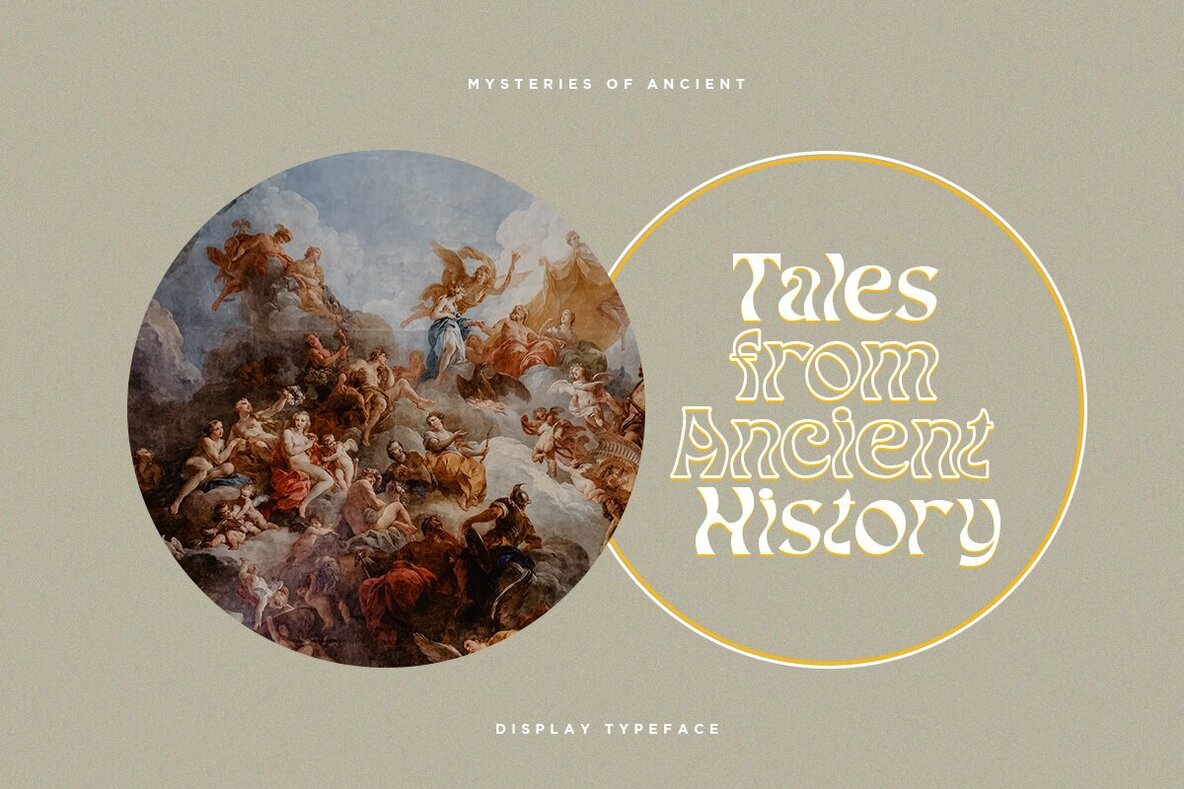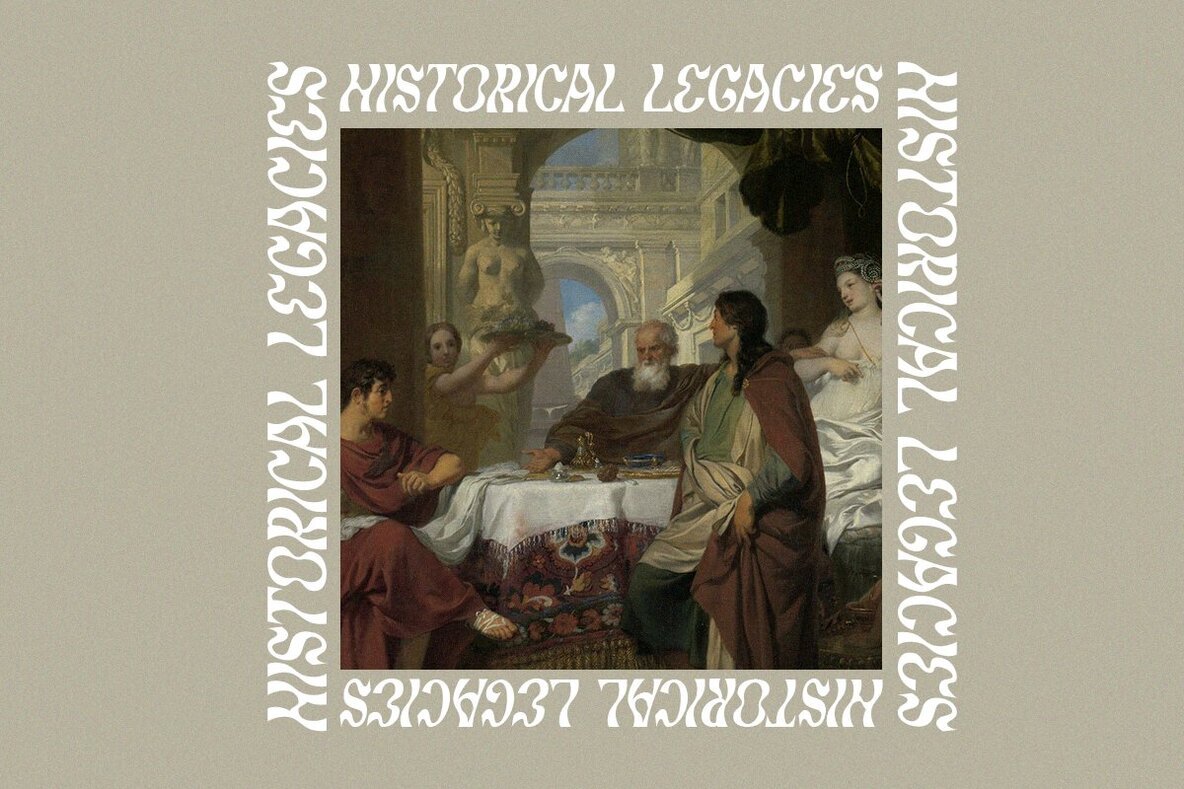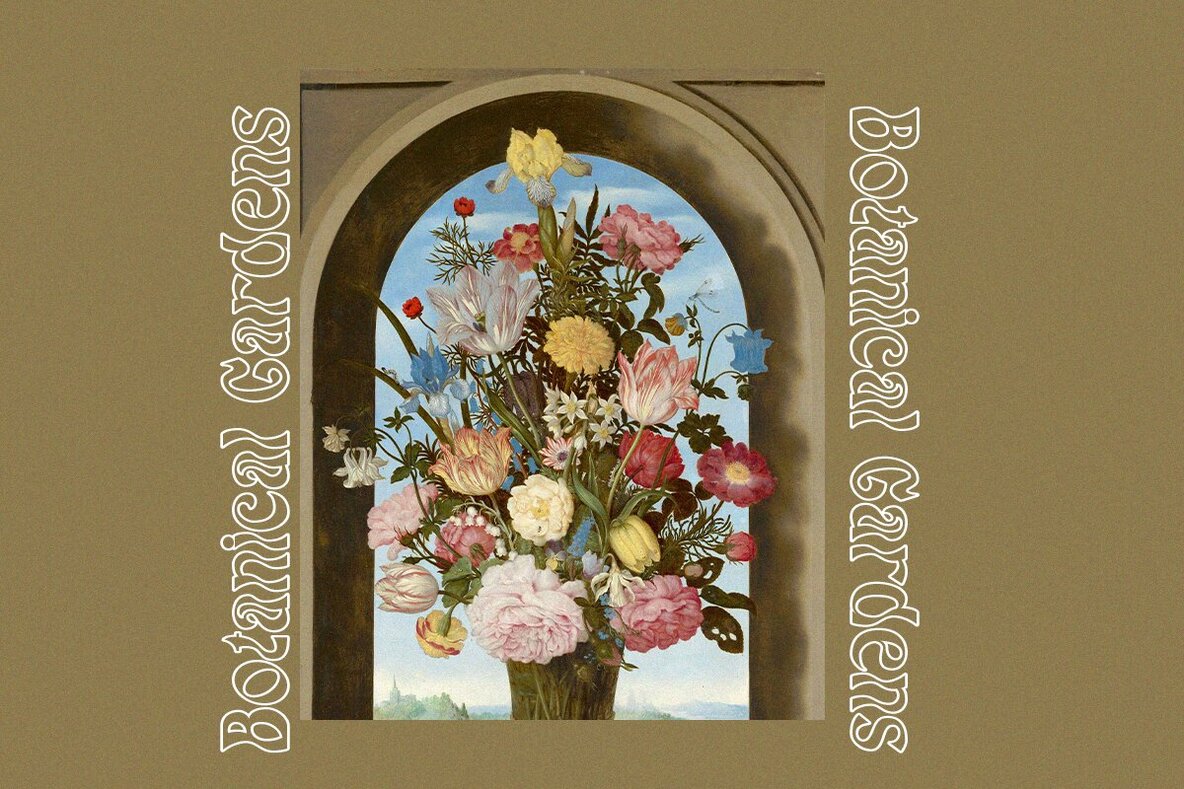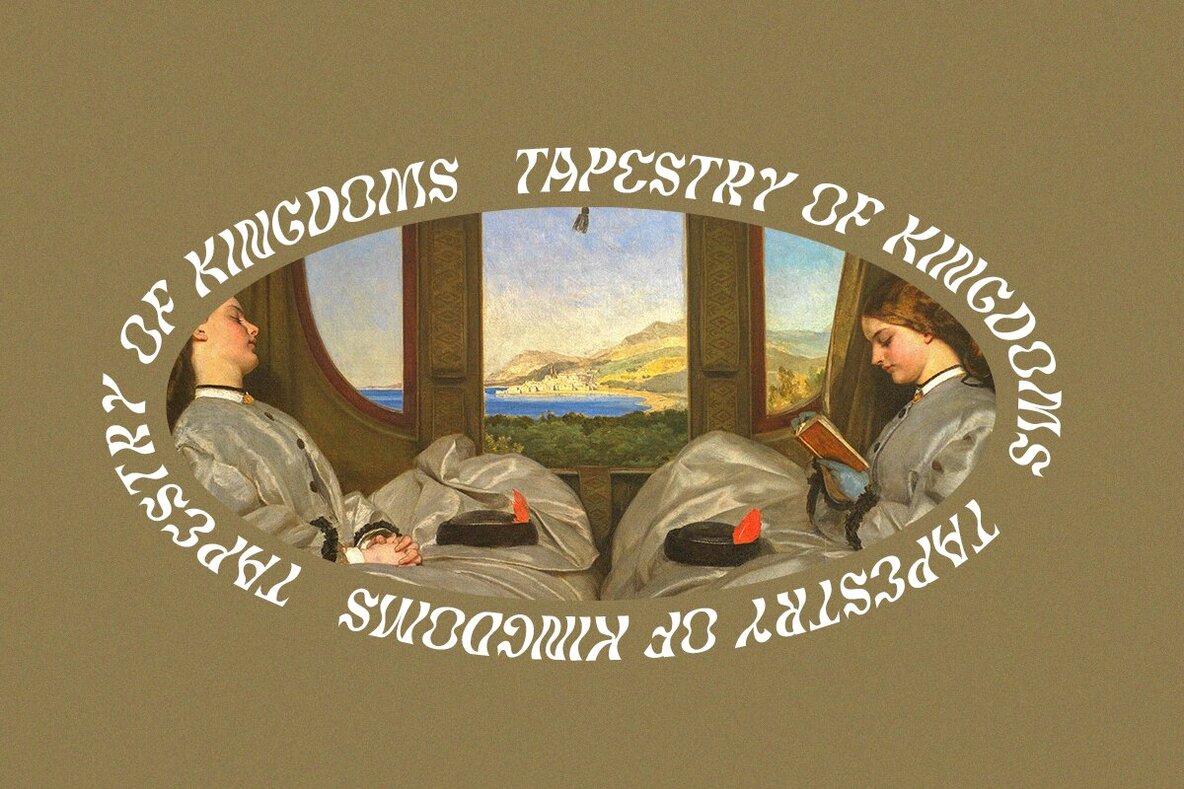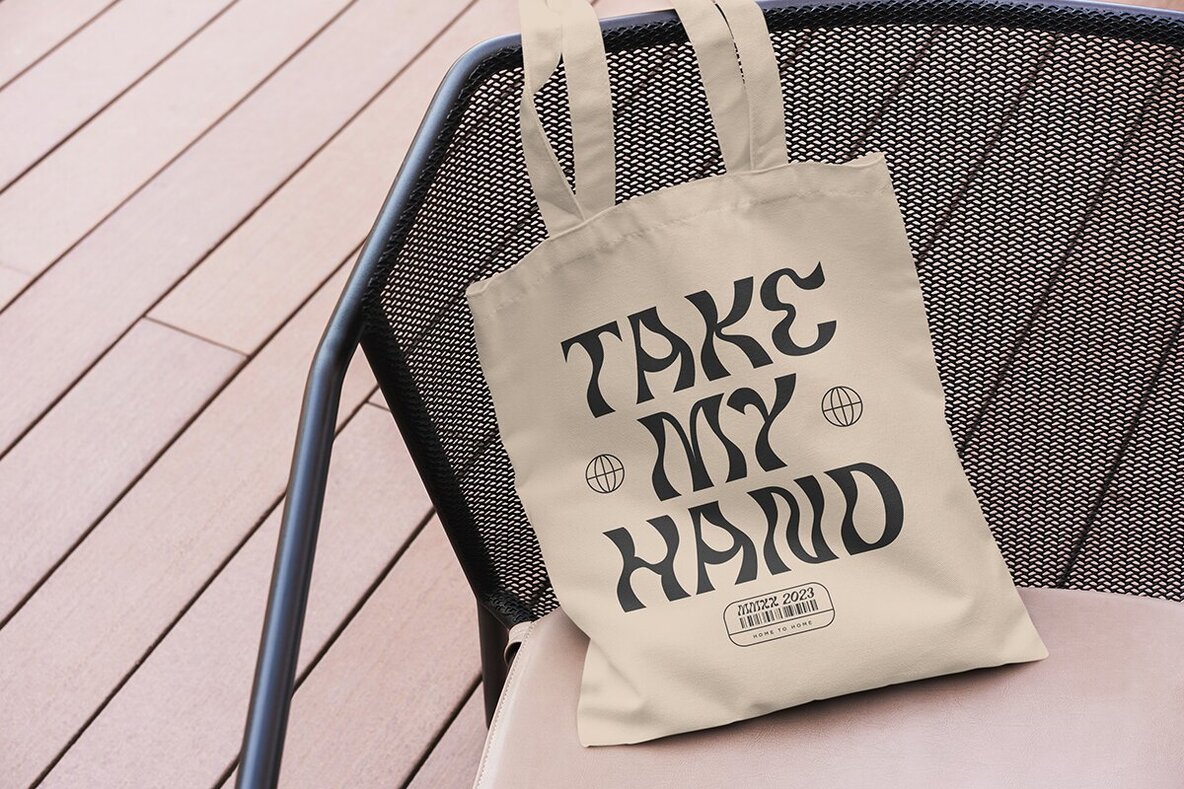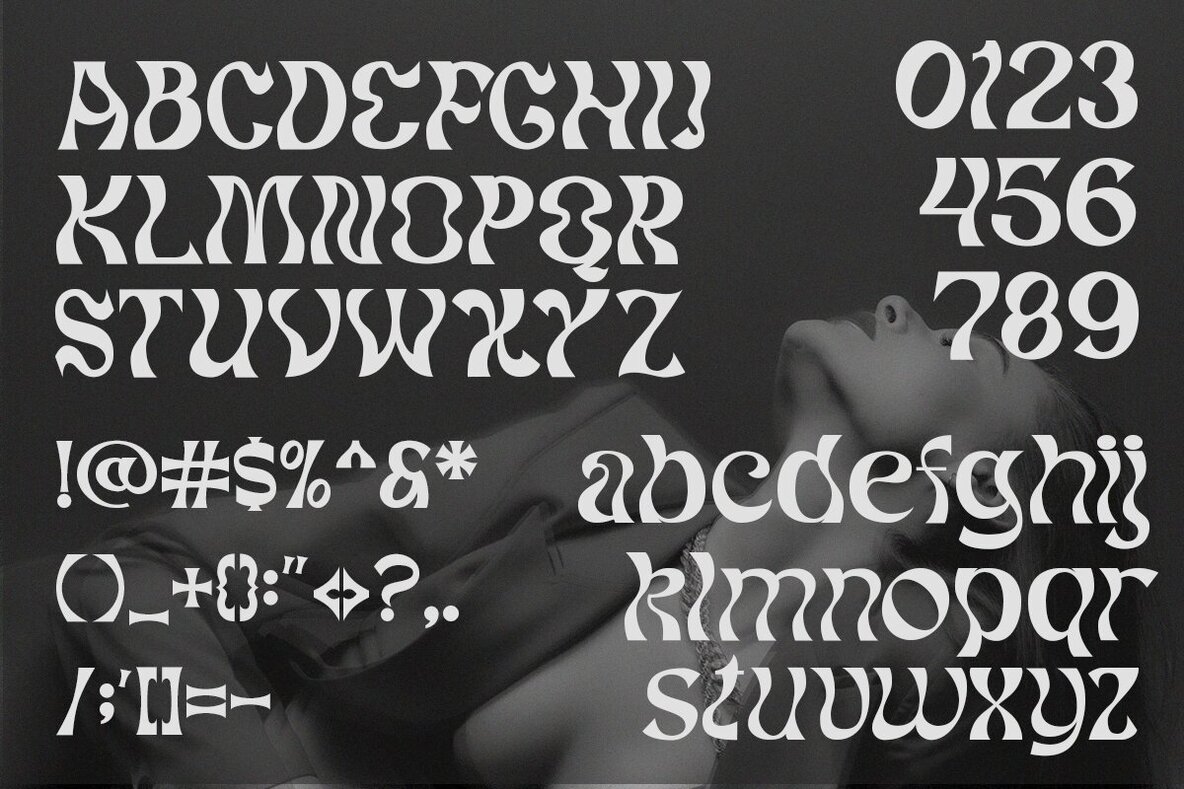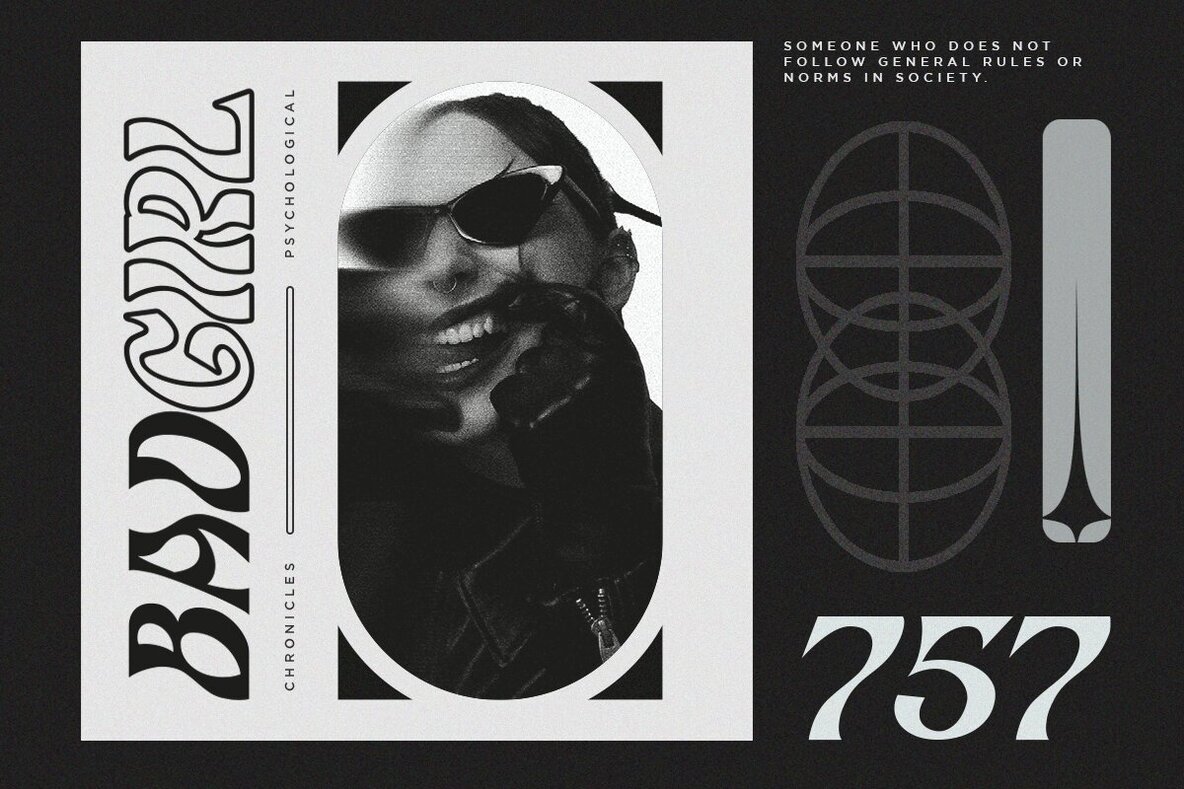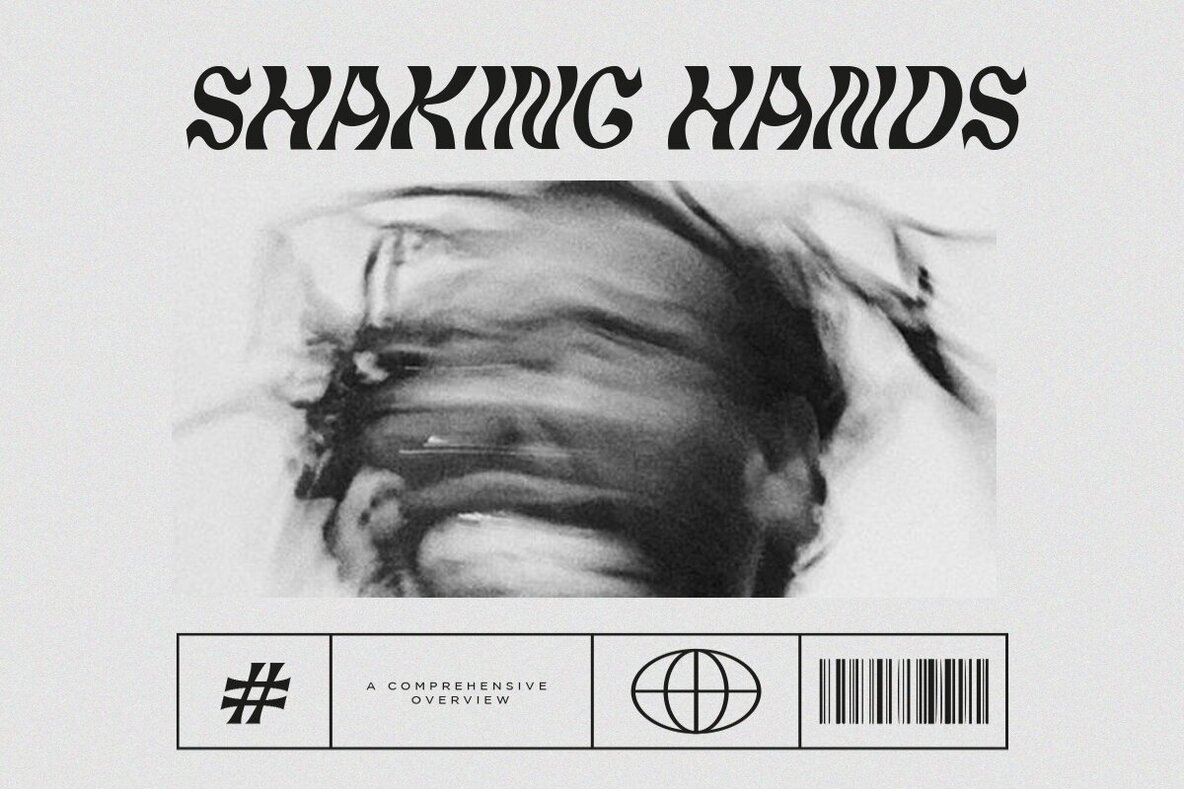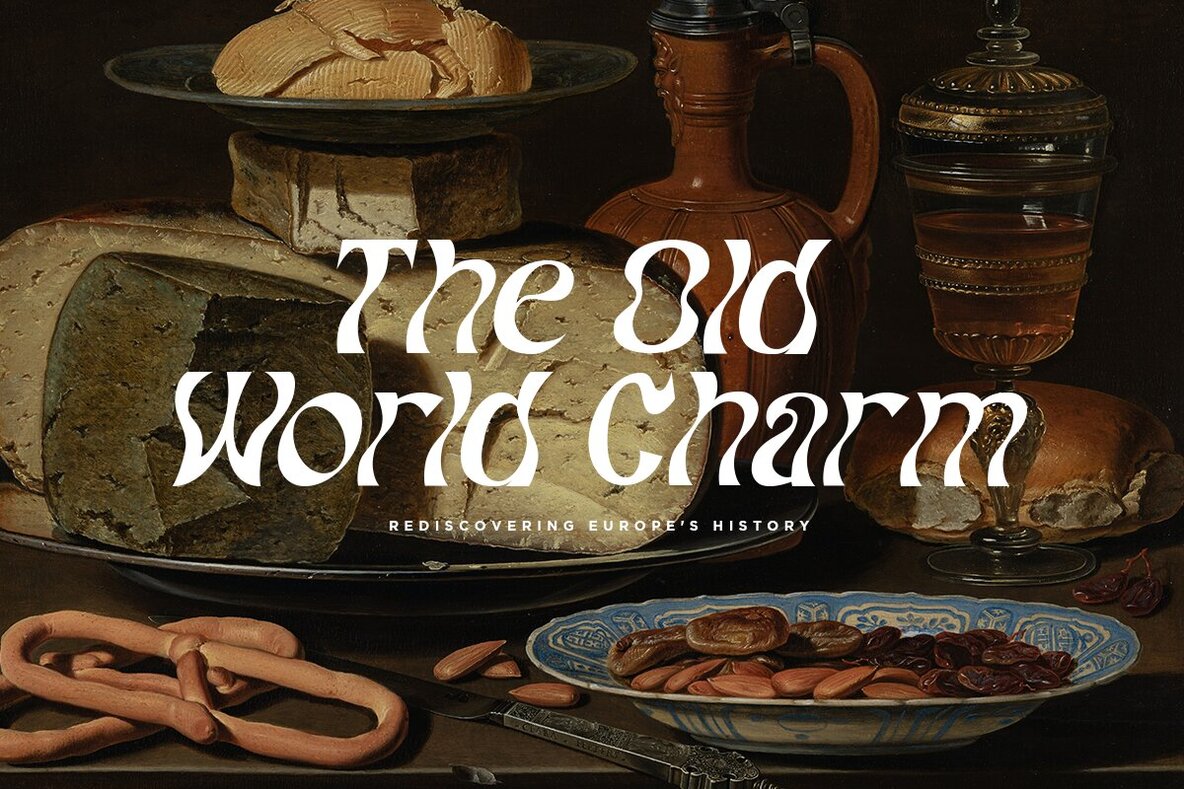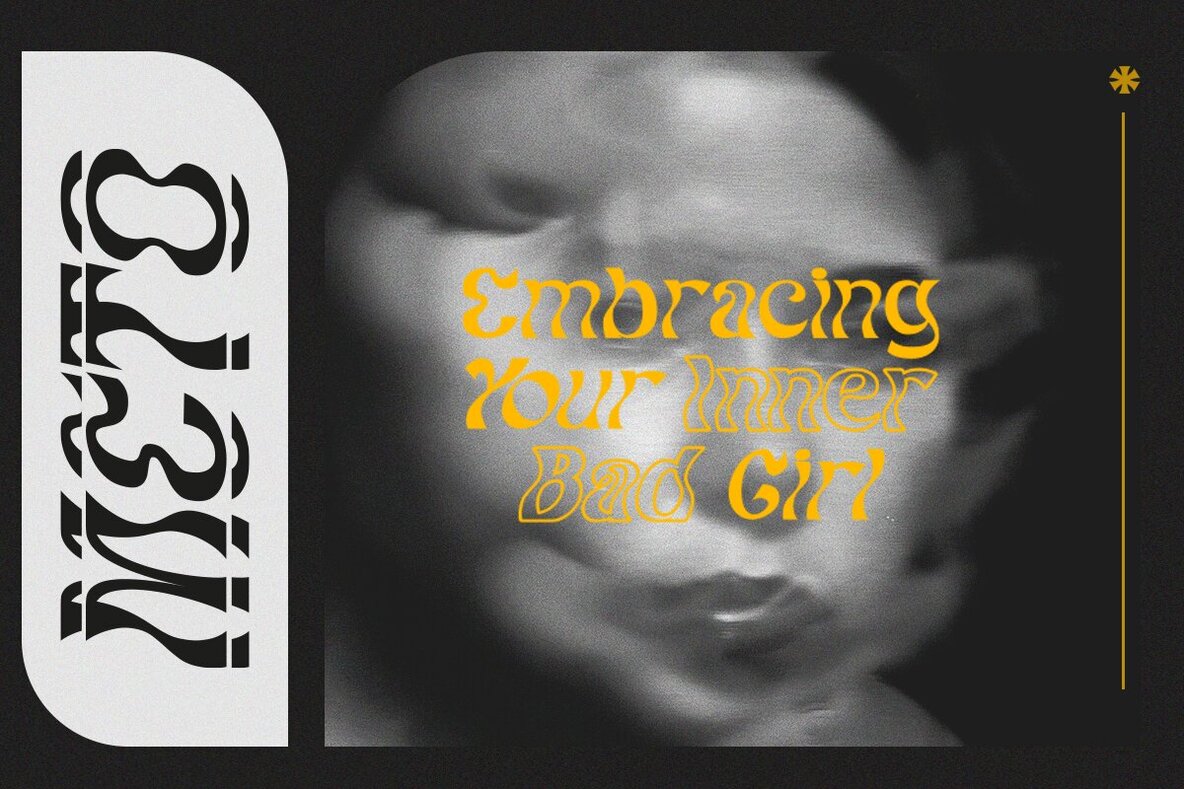
Mochaik Font
Mochaik offers a unique lettering style that perfectly aligns with the psychedelic aesthetic. Infuse your retro graphics with vintage flair using this original psychedelic-style design. It's an excellent choice for music posters, album graphics, and book titles, capturing the whimsical spirit of the 1960s and early 1970s. Mochaik brings a touch of hippie, trippy fun to any project.Mochaik: Psychedelic Display Font